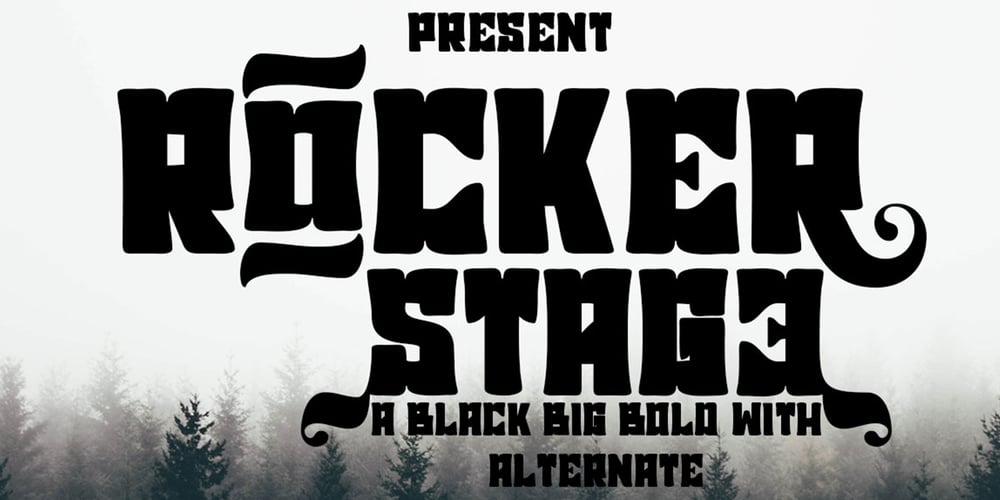
Rocker stage Font Family was designed by Ibram Syah and published by Jehansyah. Rocker stage contains 1 styles and family package options. This font is very beautiful if we combine it into a design that wants to appear bold, bold and unique, there are several alternatives that you can use to make this font as support for your design project.